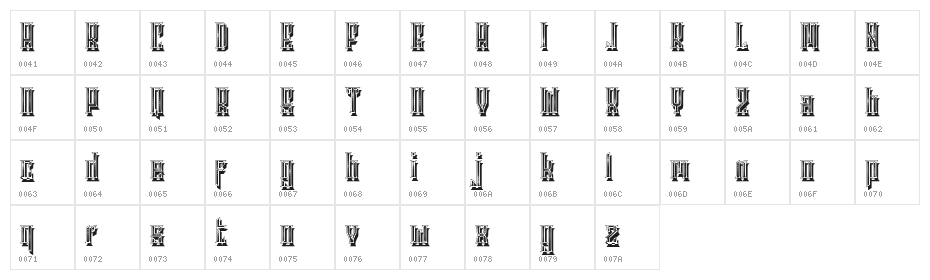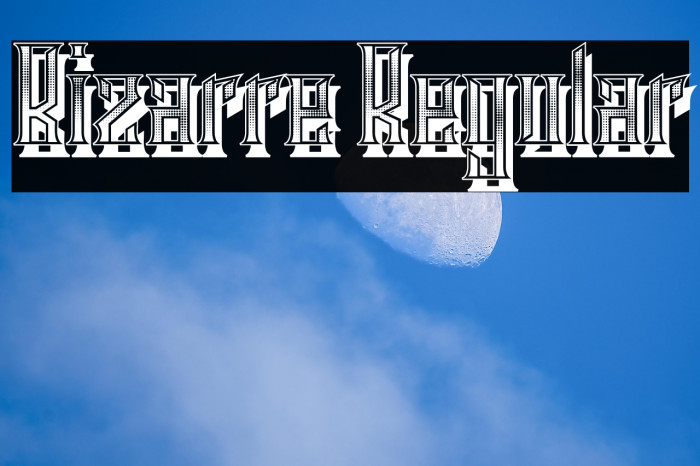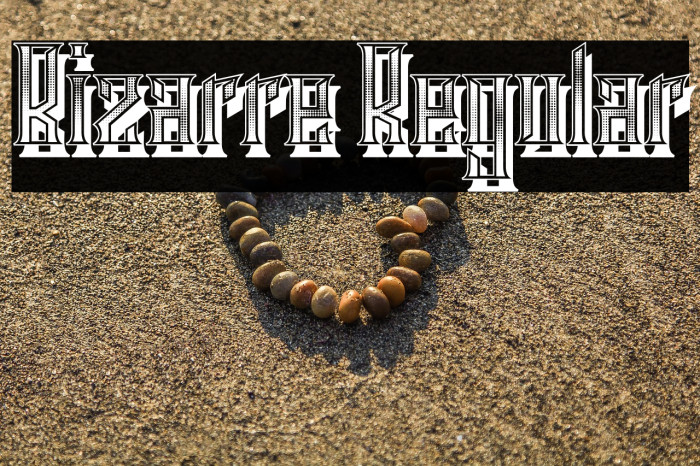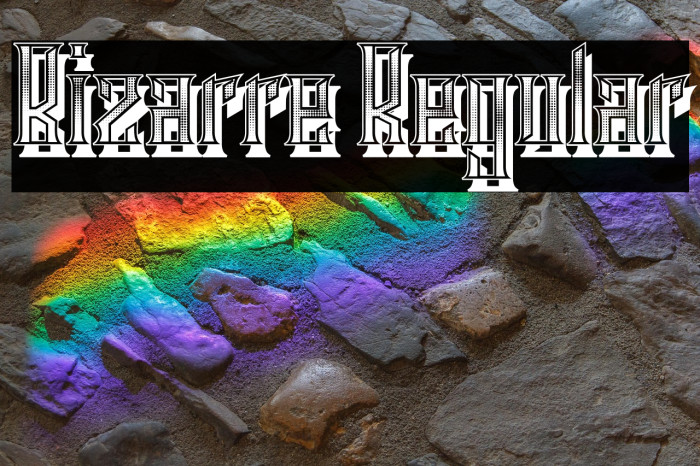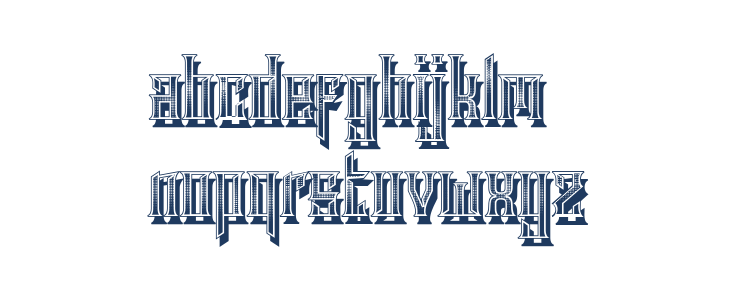
Bizarre Regular Font
Bizarre Regular Description
This font features a bold and dramatic style with a three-dimensional effect, characterized by its intricate detailing and shadowing. The letters are highly stylized with sharp edges and a blocky appearance, creating a sense of depth and movement. The uppercase and lowercase letters maintain a consistent design, with the uppercase being more pronounced. The numerals and special characters follow the same ornate style, making the font suitable for eye-catching designs. The overall look is reminiscent of vintage signage or circus posters, offering a unique and artistic flair.
| Overall Style | Vintage |
| Proposed Projects | Ideal for posters, branding, album covers, and any project requiring a standout, artistic typeface. |